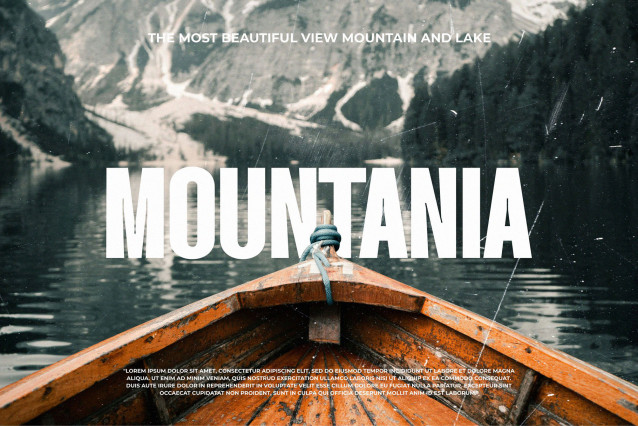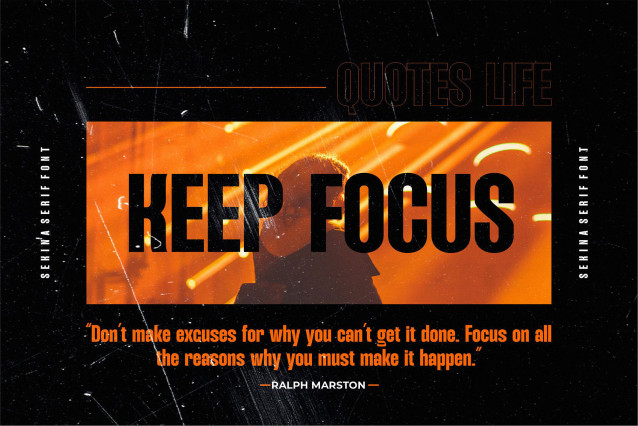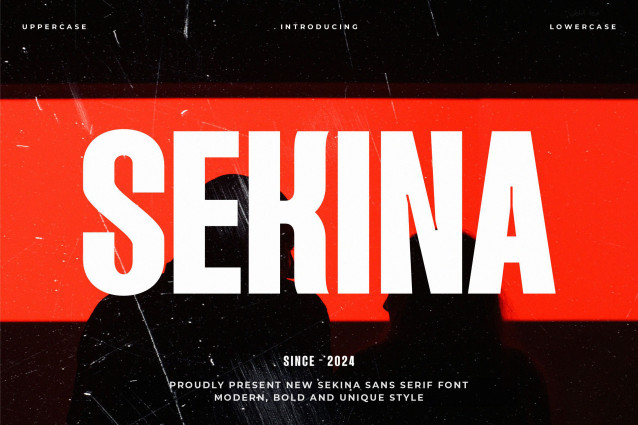
Sekina Font
Sekina Font, modern sans serif font with elegant style this is perfect for branding, logos, invitation, magazines, product packaging and more.